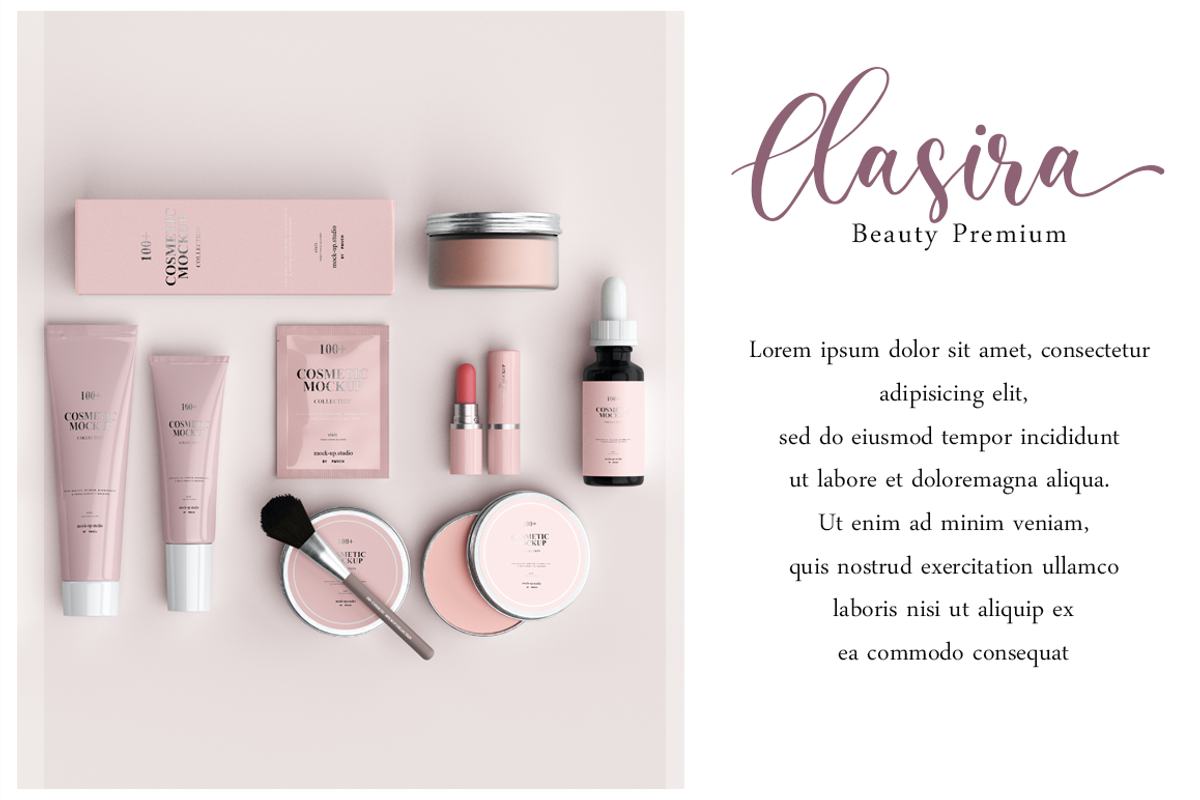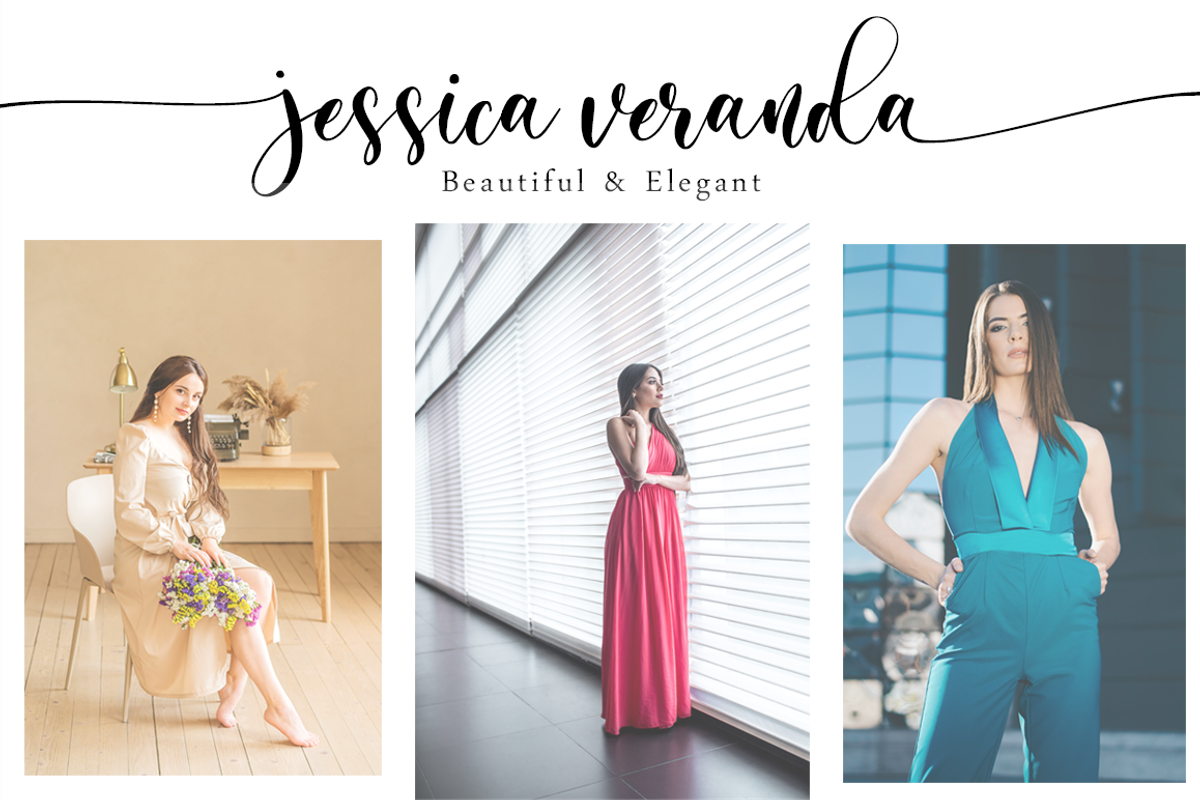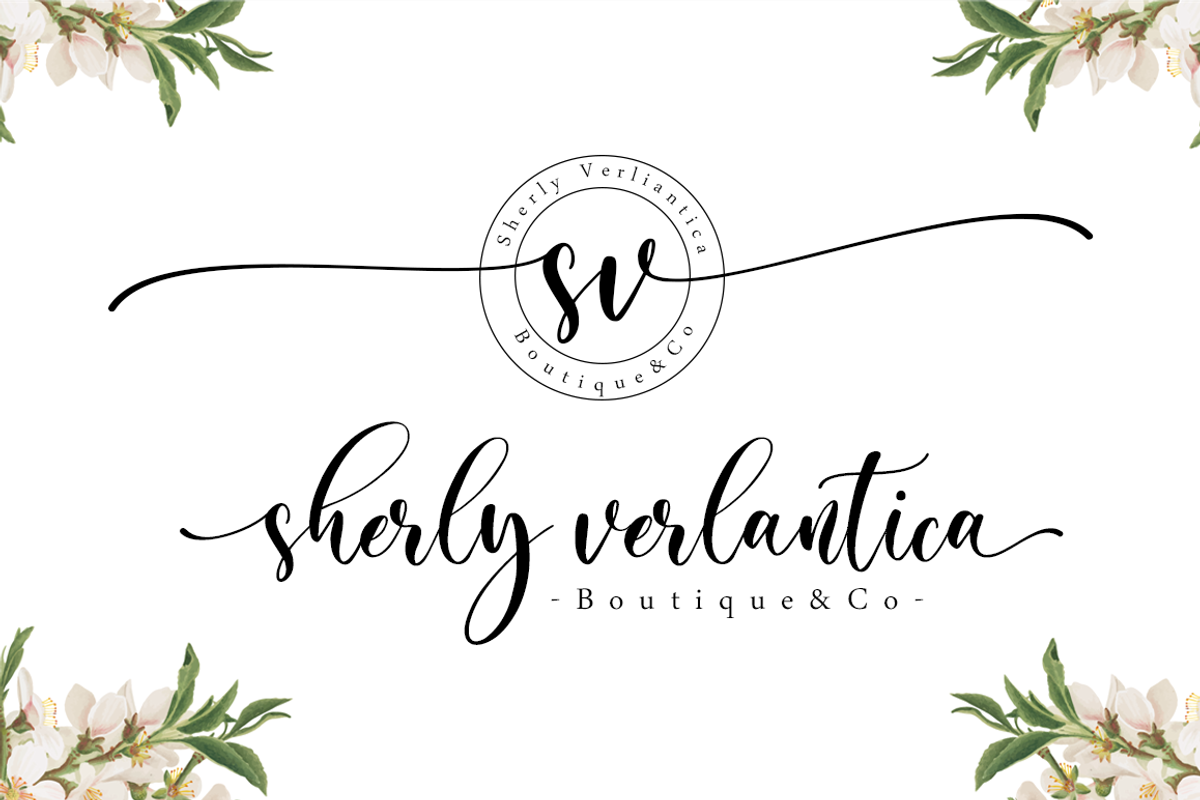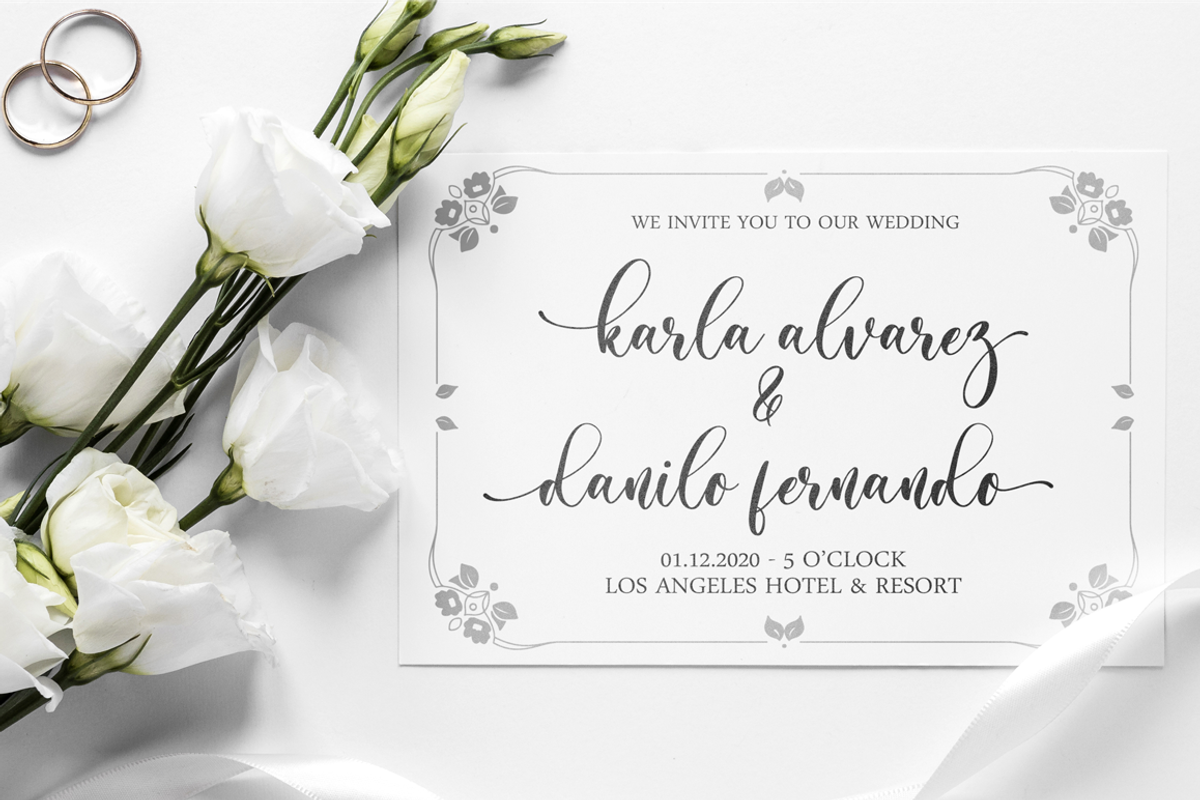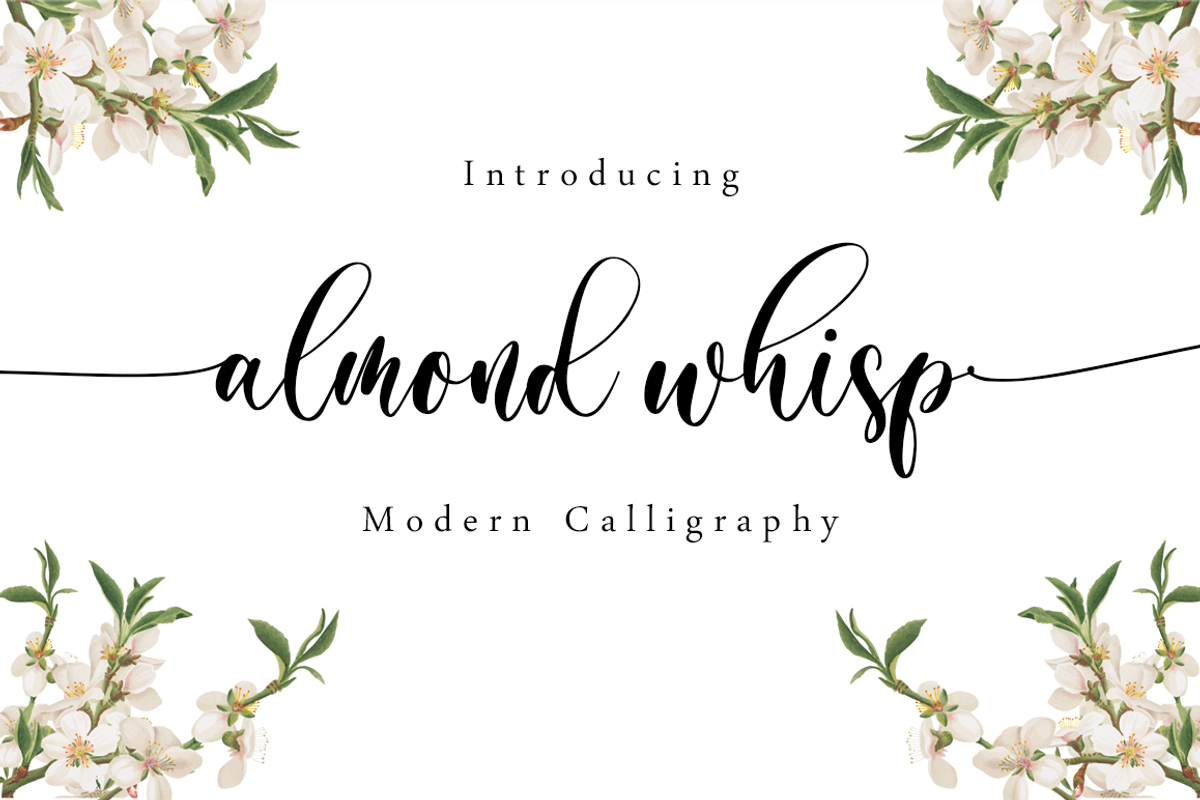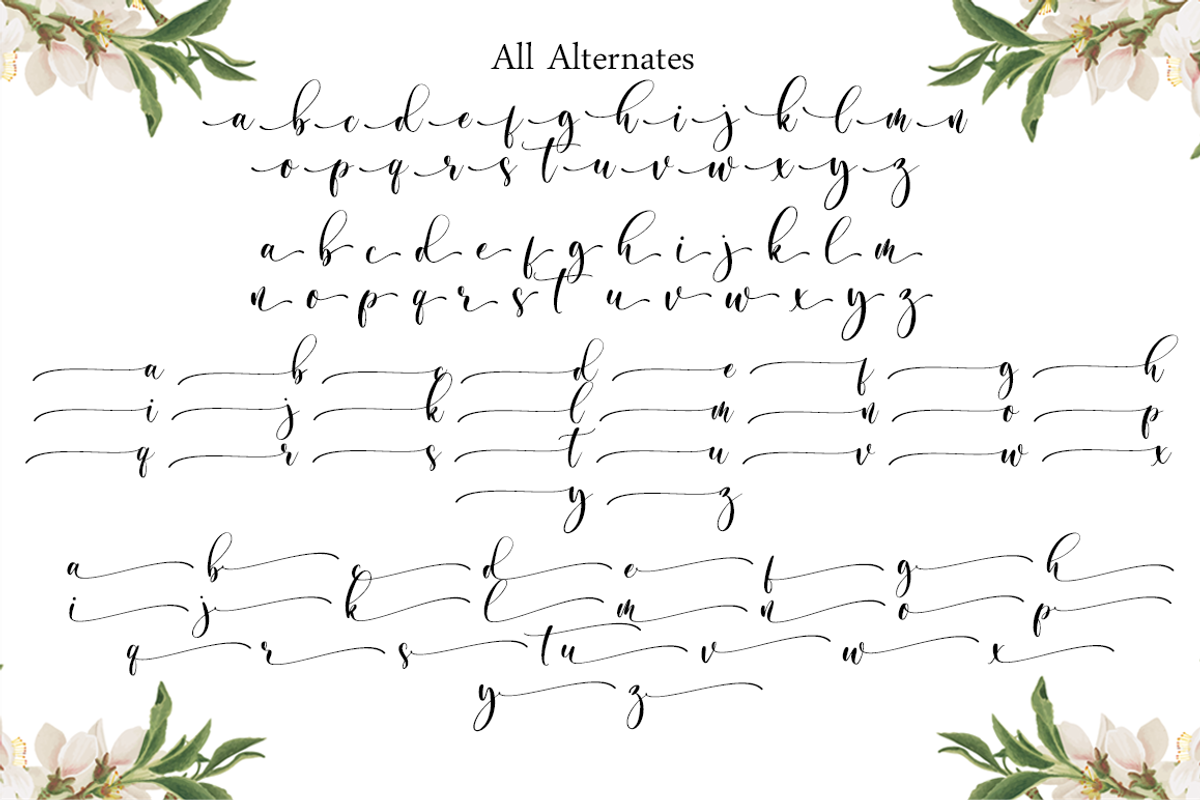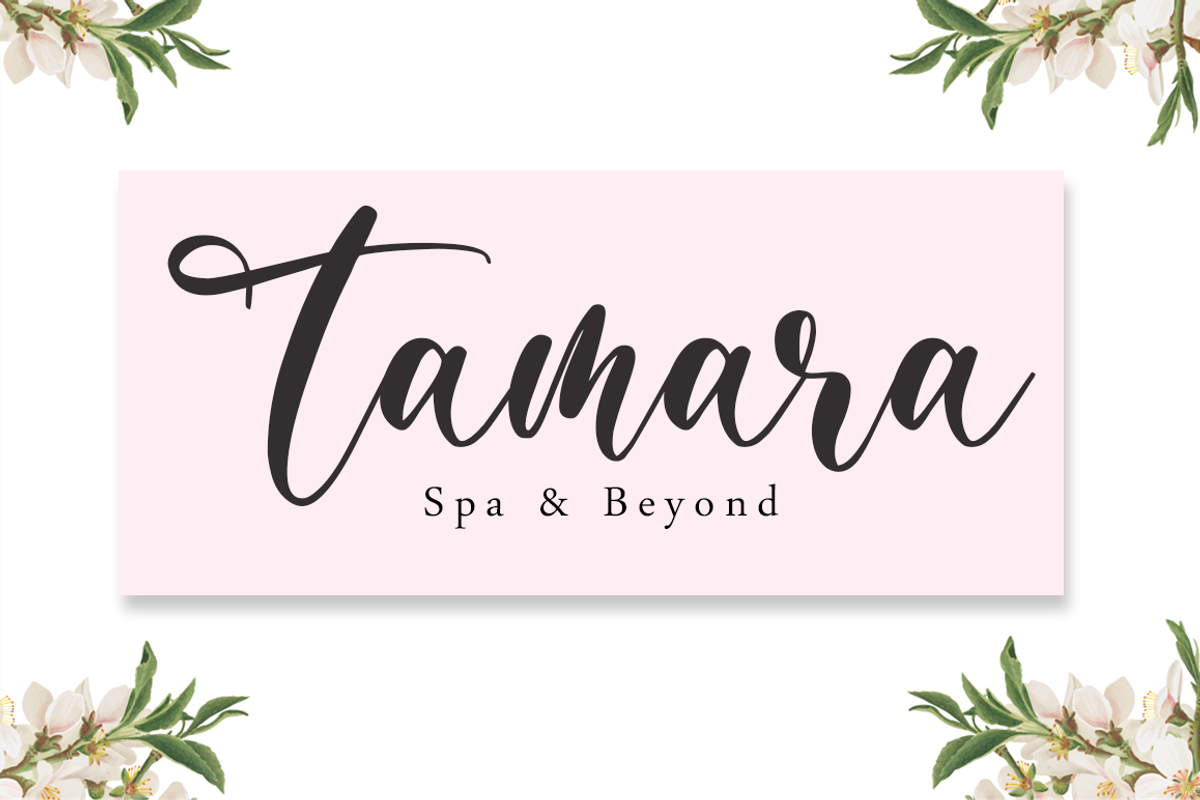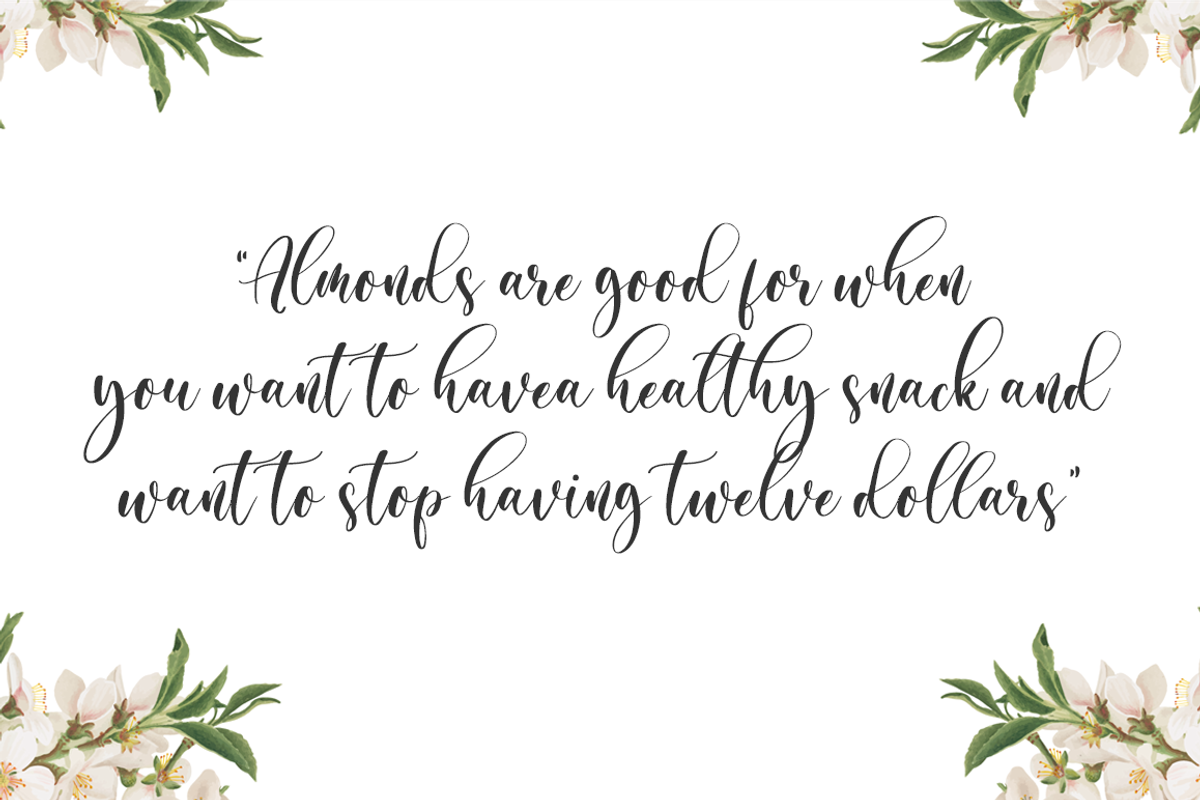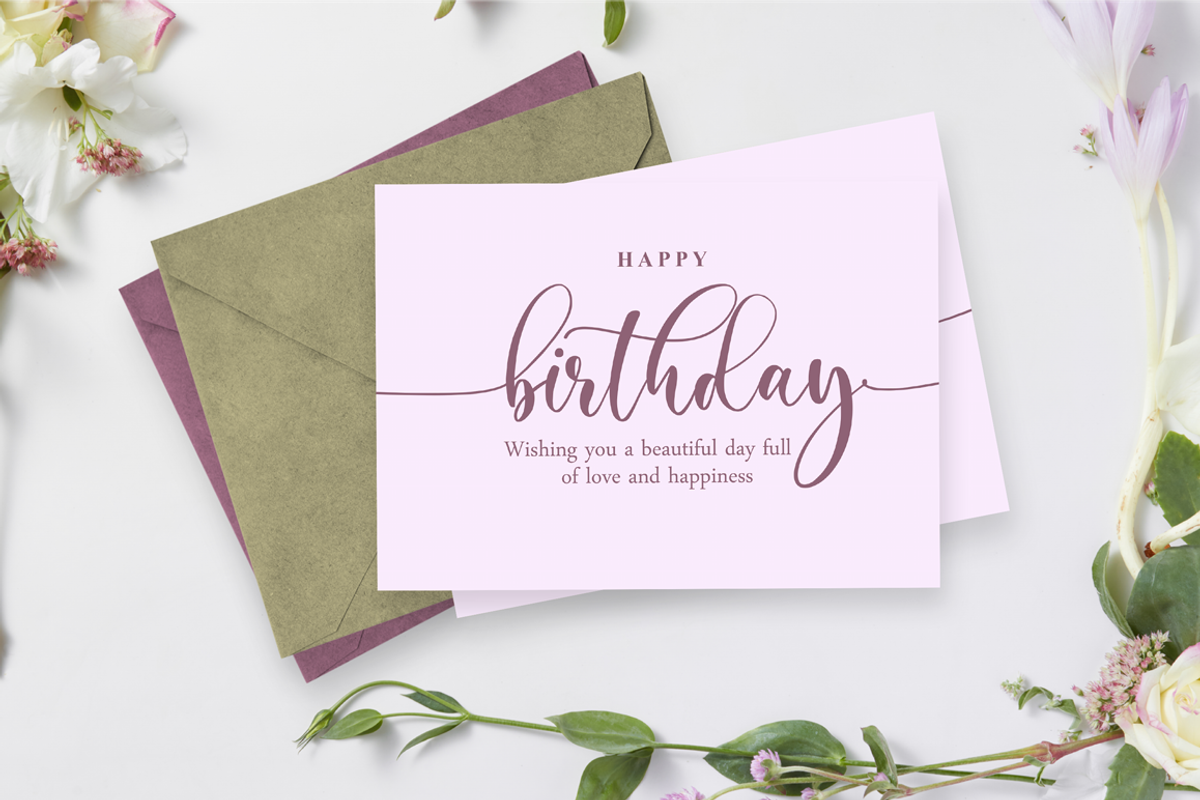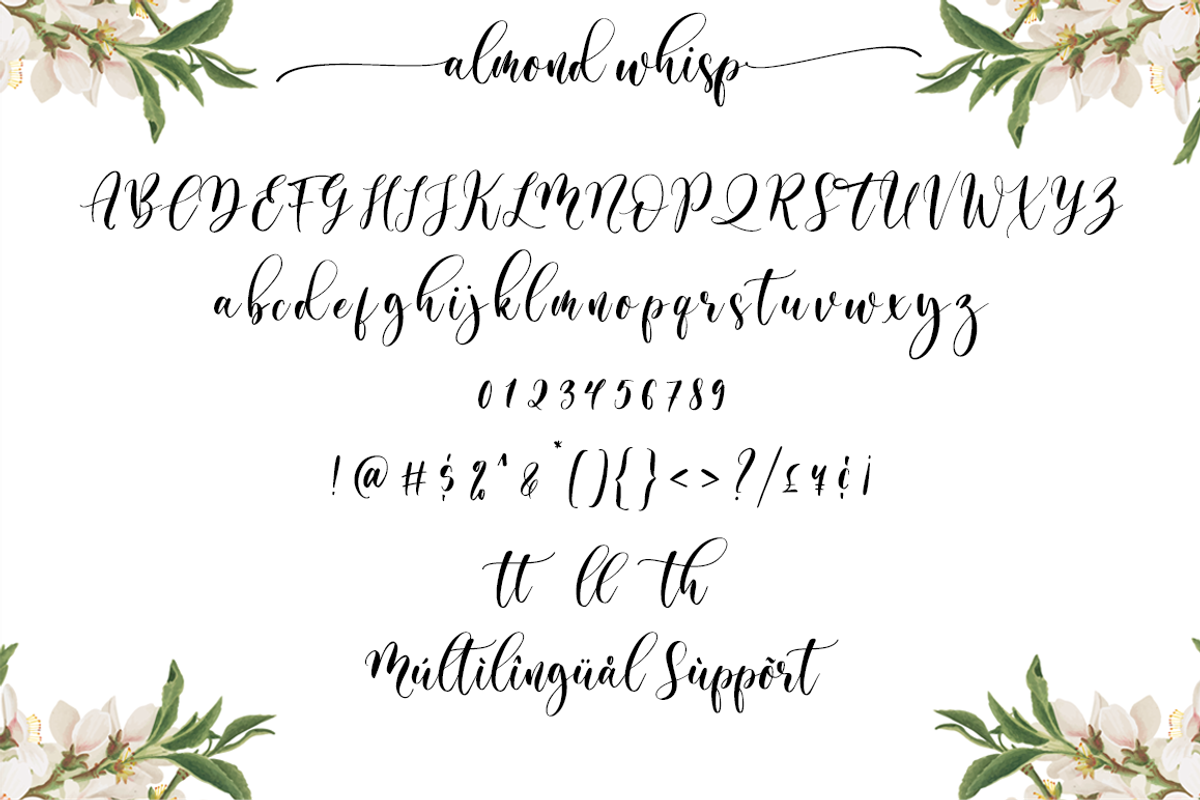
Almond Whisp - Modern Calligraphy
Almond Whisp is a beautiful calligraphy font perfect for crafting, branding, invitation, stationery, wedding designs, social media posts, advertisements, product packaging, product designs, label, photography, watermark, special events or anything.
Almond Whisp comes with full set of uppercase and lowercase letters, swash alternates, ligatures,multilingual symbols, numerals and punctuation.